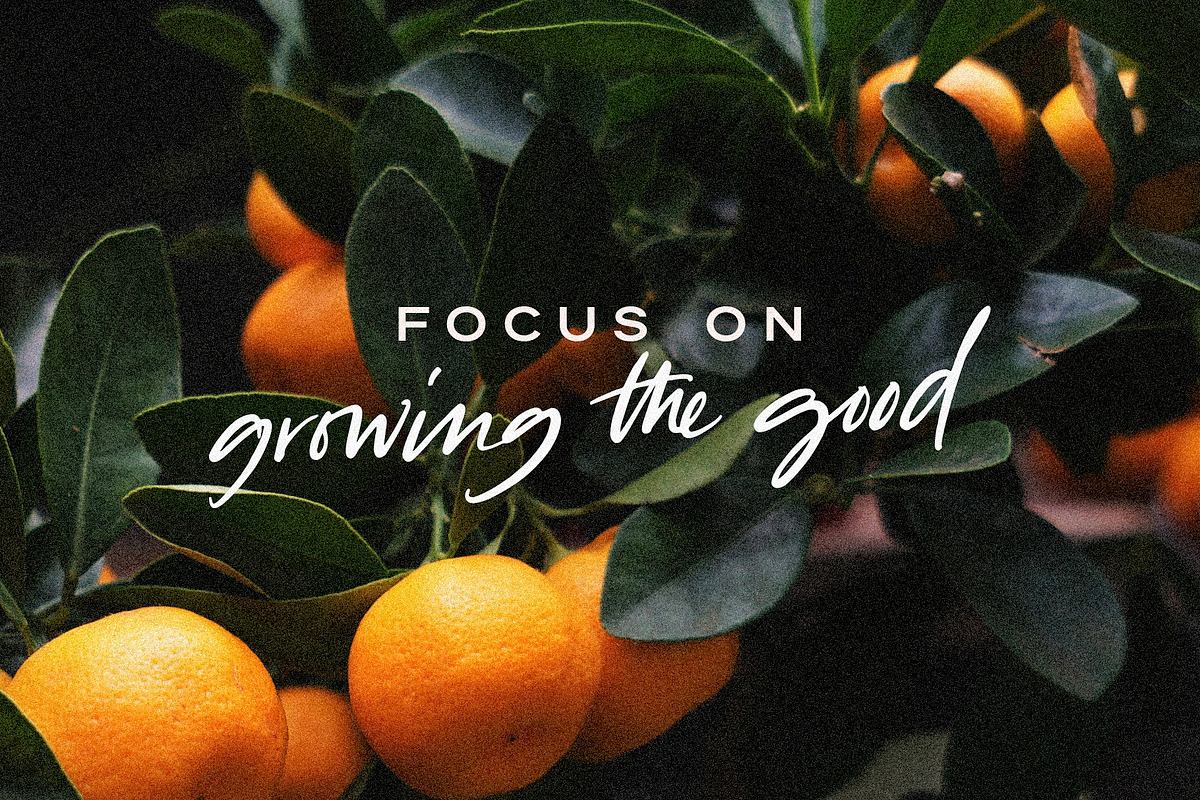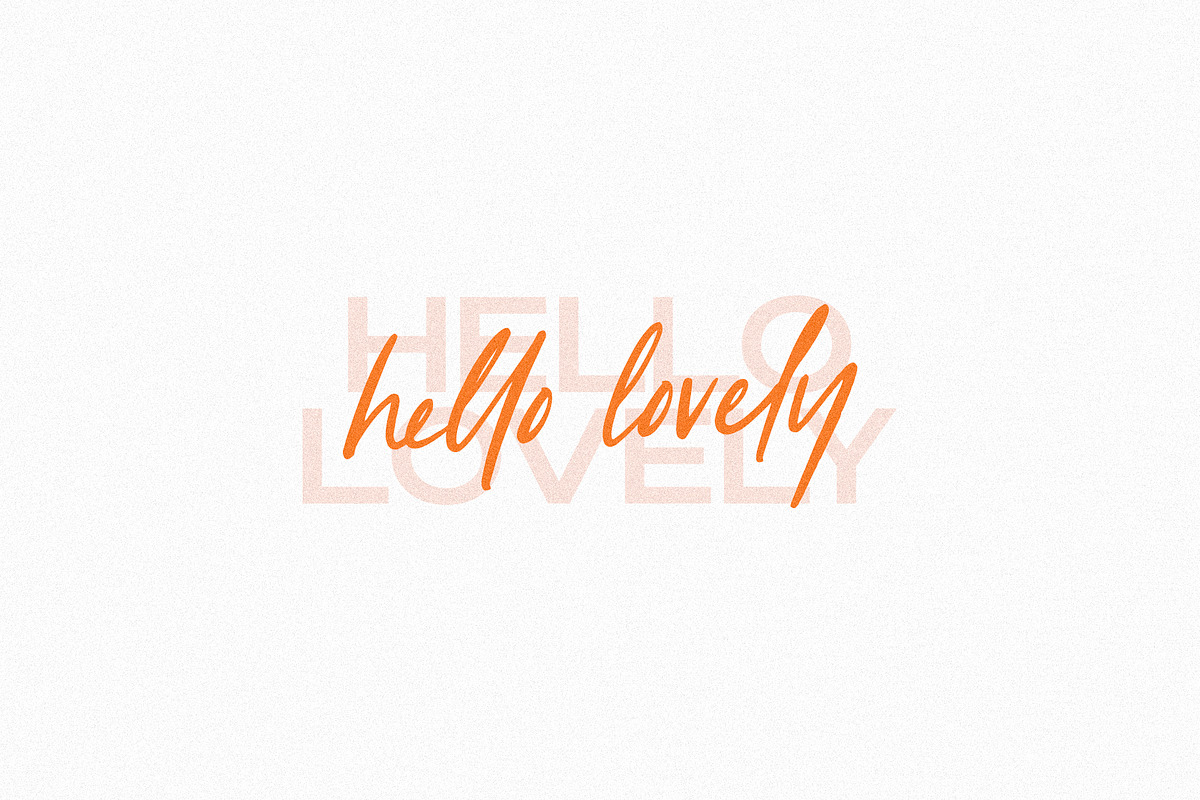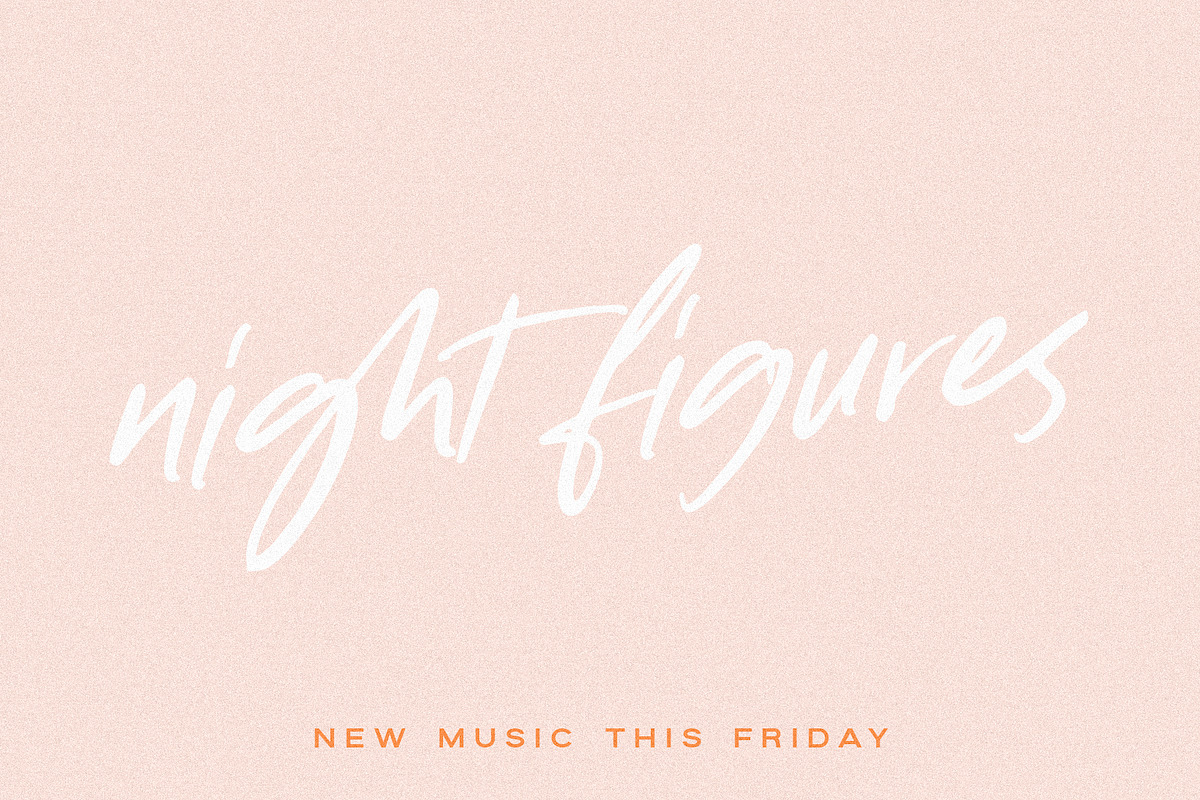
Tangerine Skies Font
Tangerine Skies is a beautiful designer sans serif and script font duo that makes for gorgeous logos, posters, wedding invitations, blog posts, social media, and more!
Tangerine Skies Script includes over 70 ligatures to make everything look hand-done, PLUS alternates for each letter. You’ll also get Western and Central European language support.
• Upper + Lowercase Letters w/ alternates (script)
• Uppercase letters (sans)
• Numbers + Punctuation
• Non-English support
• 70+ Ligatures